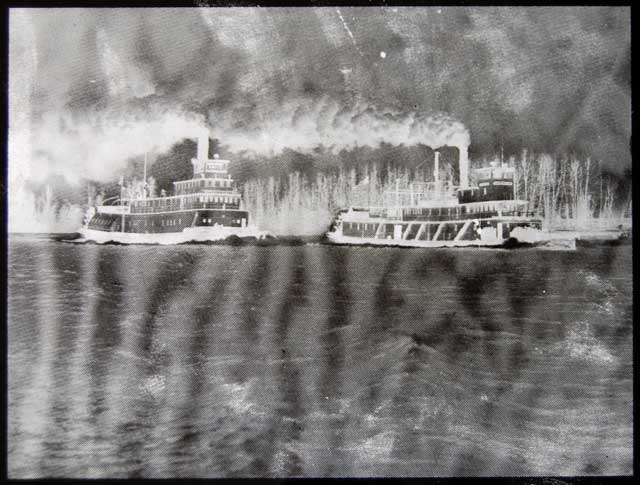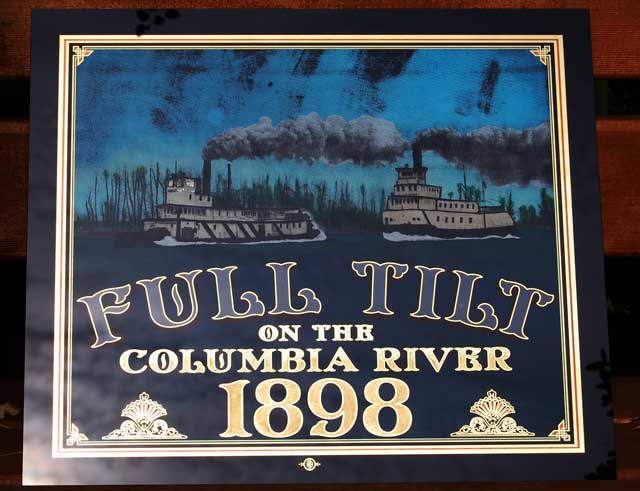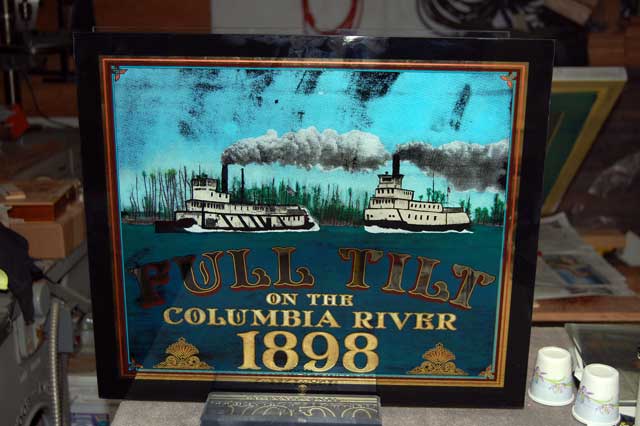
A few of us boys had nothin' to do, so we ventured down to the
staked plains of Bakersfield, out at the Bandy Tract...did up this little project
at an impromptu conclave....
They got a couple real nice reverse glass signs in there...English, I presume.
I like your piece a lot Blake. Sweet it is. Where's the Mock though? At least a RIP or somethin'.
Anyway, I painted the image yesterday. I still need to put the shell on the text of "Full Tild". Took a pic in the sun and the colors washed out so I took one in the shop but the gold washes out. Well, you get the idea.
Here is a picture of the original screen. It is quite old, dirty, distressed and loose. The marking on the frame says it is 150 mesh. Somebody dripped emulsion in a few spots. Big issues: it is a negative and so will print a negative image. To correct this, we had to turn a negative into a positive film and then burn a new screen. Lost a little detail but it worked.
I took a picture of my effort in the sun. It showed the gold well but washed out the color.
Took another picture in the shop:
I like Blake's interpretation. Many people told me they liked the distressed look from the screen. So I left it on the piece.
Gonna make another one and glue chip/gild the date.
It is hard to take good pictures of this stuff.
Mine looks better in person.
Looks like you added some additional "hard line" detail in the boats.
Look forward to seeing your second run also.
vinyl consumed maggot mind!
You & your worm-rot brained Dead Man brothers!
...okay....
Re: Original Dead Men
its no good for you now blondie.
if I was in your shoes, yes, I would...
I would tell my half of the secret, after all
what good is the gold if your gone?
Re: Original Dead Men
The best gilder is John Dickinson.
He is a tipless gilder, 23 double X,
and paint mask don’t enter into his thinking.
He loves to pull a squeegee.
Where can I find this, "Dickinson".
Dunfries, I recon....
So for now, I have to "self medicate" and soak my foot in hopes the swelling will subside and that the bone will turn out to be undamaged.
Re: Original Dead Men
That's swole up tighter than Dick's hatband!...
They're gonna have to cut it off!
'Course a fella like you don't want to loose his toe....